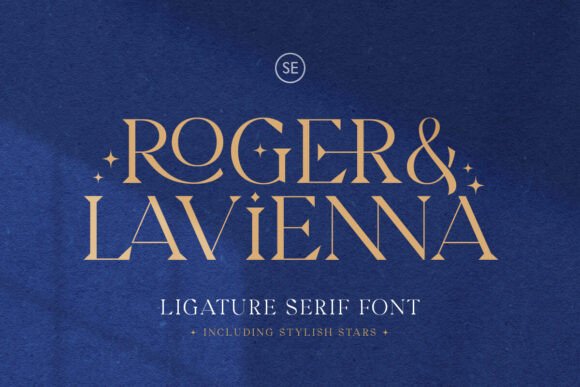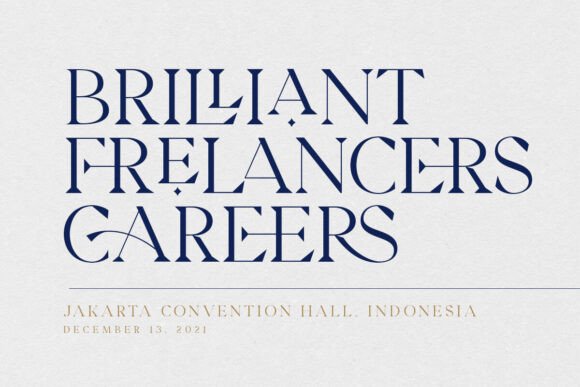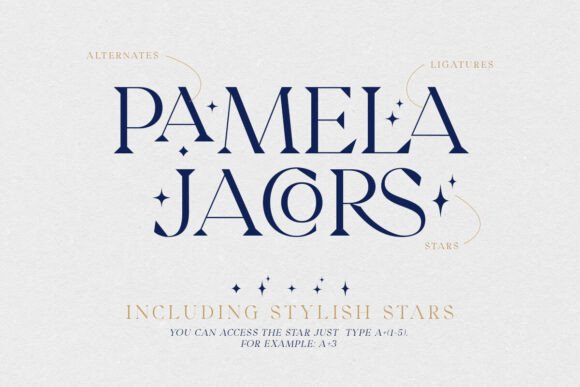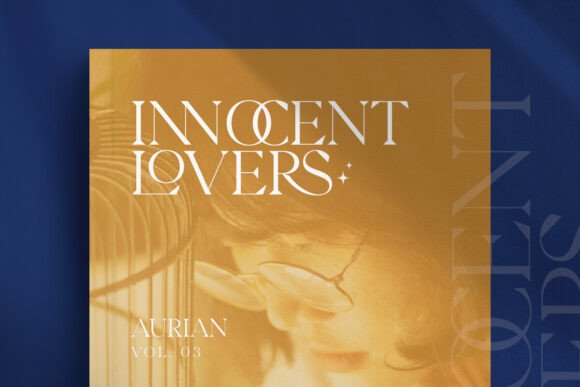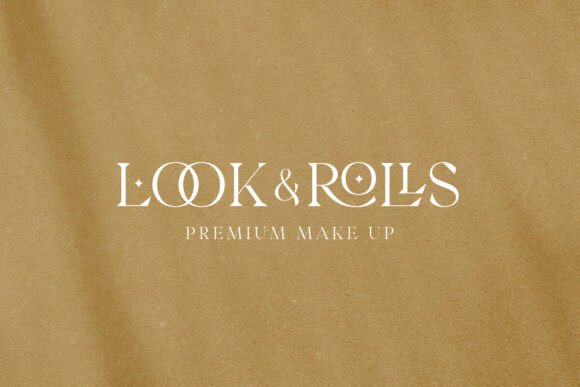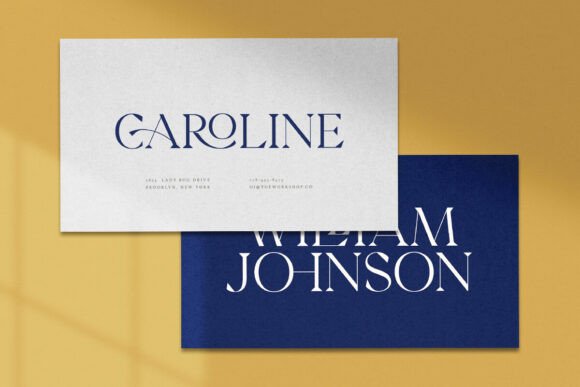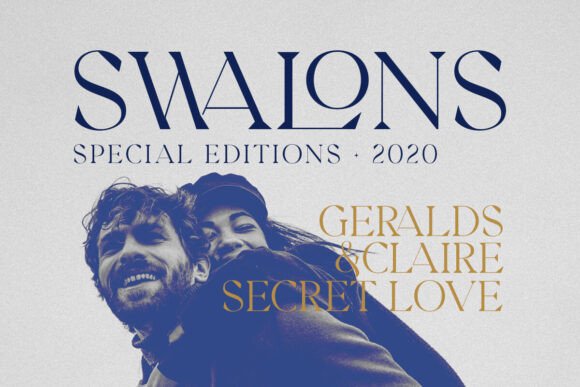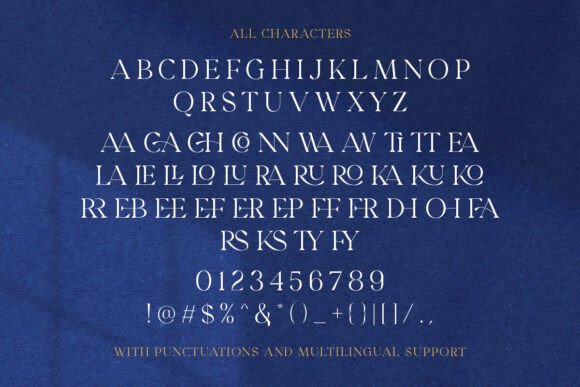
Roger & Lavienna Font
Roger & Lavienna is a classic and modern serif font that contains a bunch of gorgeous ligatures that will make your design, presentation or logo even more stunning and stand out! This font also contain stylish stars that will make your project sparkling and more interesting. You can access the stars by typing A+(Number 1-5). This fonts support Multi Language and already PUA Encoded!